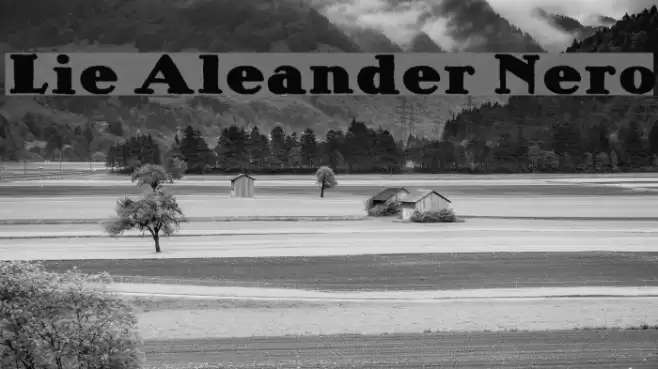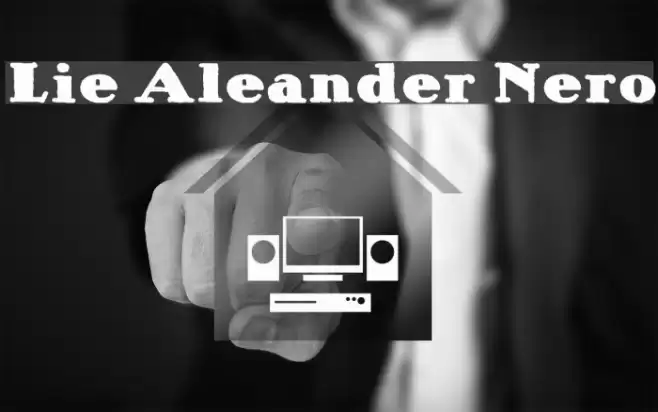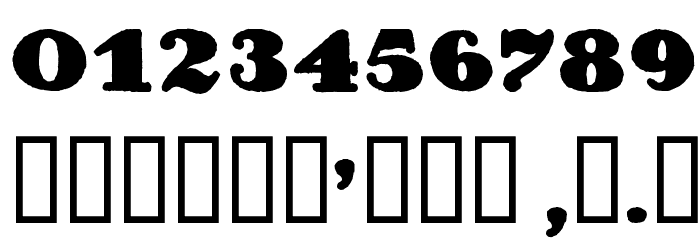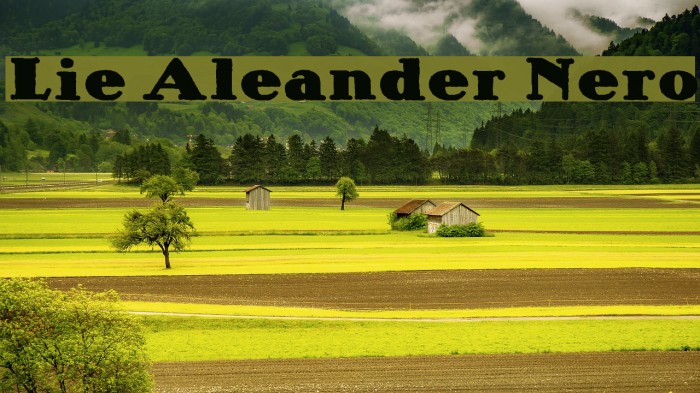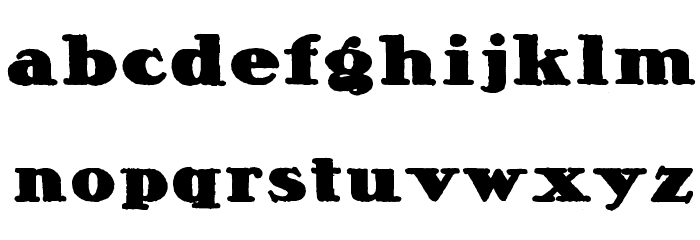
Lietz Alexander Nero Font
Lietz Alexander Nero Description
This font exhibits a bold and impactful style, characterized by its thick, heavy strokes and slightly distressed appearance. The uppercase letters are robust and commanding, while the lowercase letters maintain a consistent weight, providing a harmonious balance. The numerals are equally bold, ensuring visibility and emphasis. The special characters retain the same weight and style, making them suitable for various design contexts. The overall aesthetic is reminiscent of vintage or industrial design, with a touch of ruggedness that adds character and depth.
A bold, distressed font with a vintage, industrial feel from Distorted Eroded fonts.
- Proposed Projects: Ideal for poster design, branding projects, headlines, and any creative work that requires a strong, vintage aesthetic.
- Overall Style: Vintage